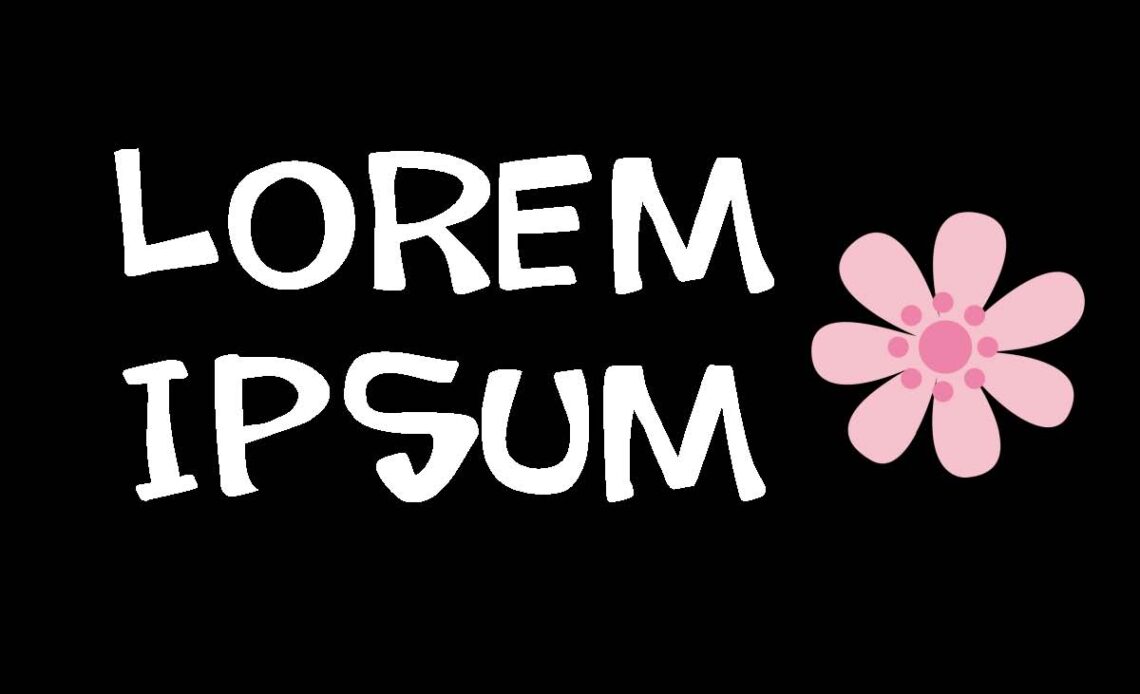
Unleash the power of expression with K26 Lorem Ipsum, a captivating display font family that ignites your creativity. Dive into an ocean of customization possibilities, satisfying every designer's thirst for uniqueness.
Immerse yourself in a world where ordinary text transforms into art. K26 Lorem Ipsum's enchanting characters dance across your screen, evoking emotions and capturing attention like never before. This font family isn't just a collection of letters; it's a symphony of elegance, creativity, and originality.
Experience the allure of K26 Lorem Ipsum's letterforms, meticulously crafted to convey your message with charm and sophistication. Each stroke, curve, and detail tells a story, captivating your audience with its timeless appeal. Whether you're designing a poster, a logo, or a social media campaign, K26 Lorem Ipsum will make your words shine.
Embrace the versatility of K26 Lorem Ipsum, effortlessly adaptable to any project. Its inherent elegance graces invitations and wedding stationery, while its modern edge adds a touch of intrigue to branding and marketing materials. Let K26 Lorem Ipsum elevate your designs and captivate your audience with its timeless charm.
Don't settle for ordinary fonts. Choose K26 Lorem Ipsum and unleash the full potential of your creativity, captivating your audience with every stroke. Experience the magic of K26 Lorem Ipsum today and let your designs speak volumes.
Join the creative revolution and make K26 Lorem Ipsum your go-to font for extraordinary designs. Its enchanting characters and endless versatility will transform your projects, leaving a lasting impression on all who encounter them.